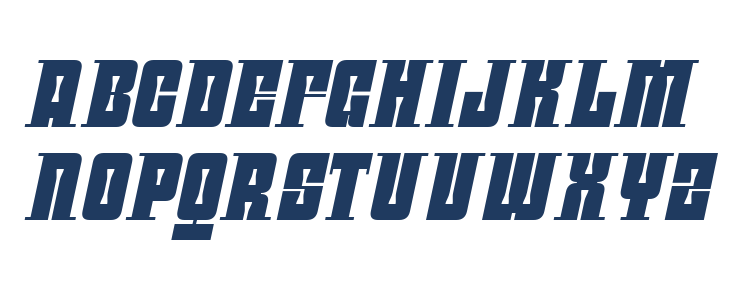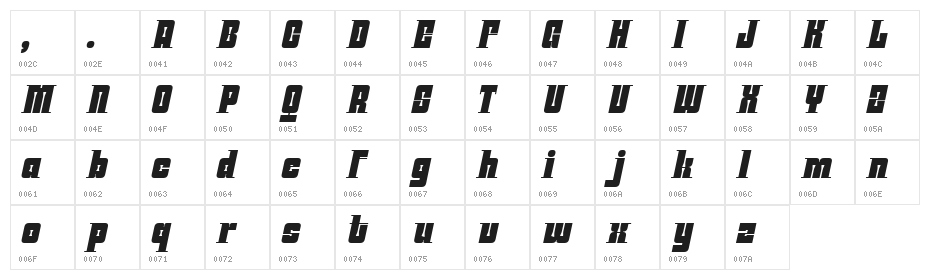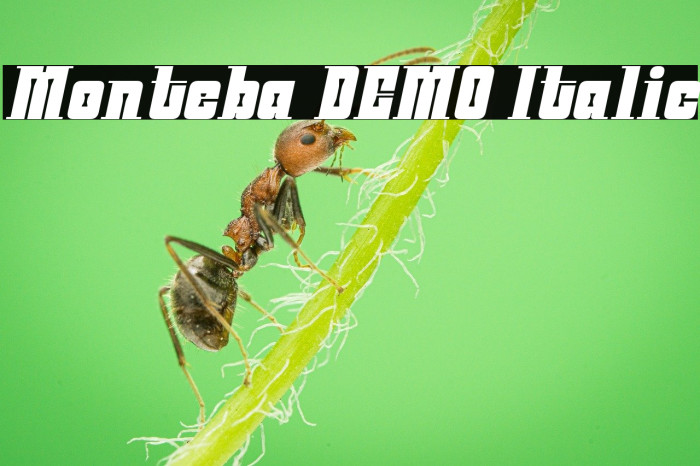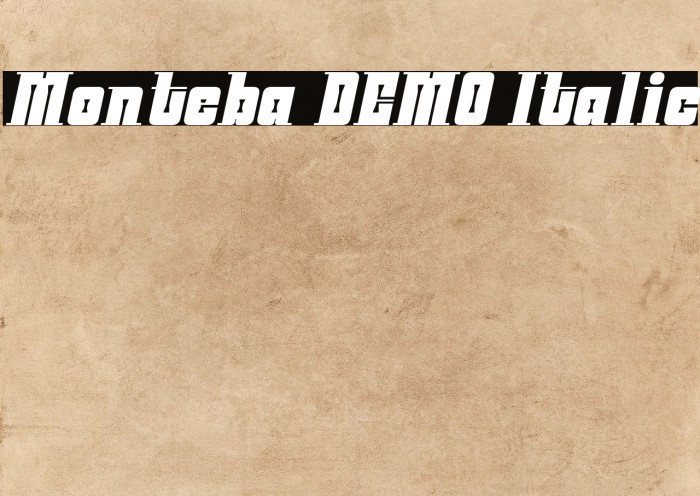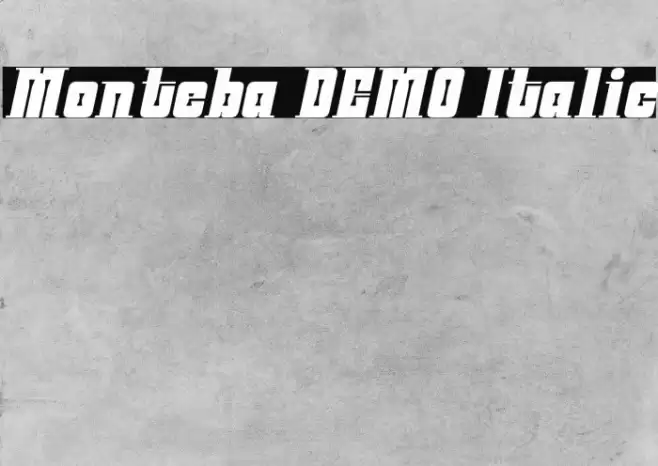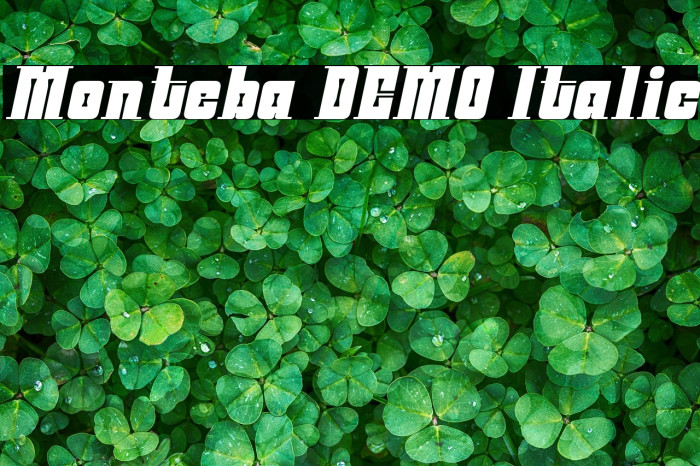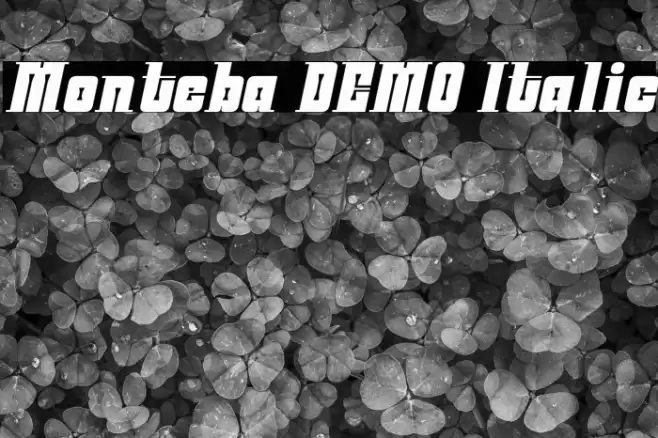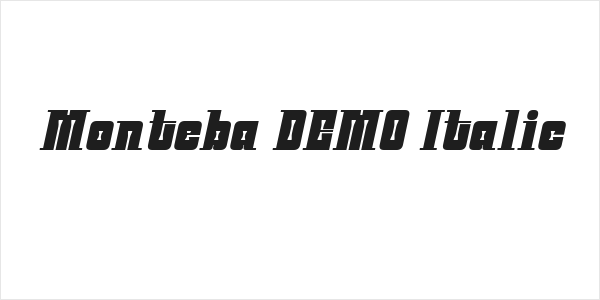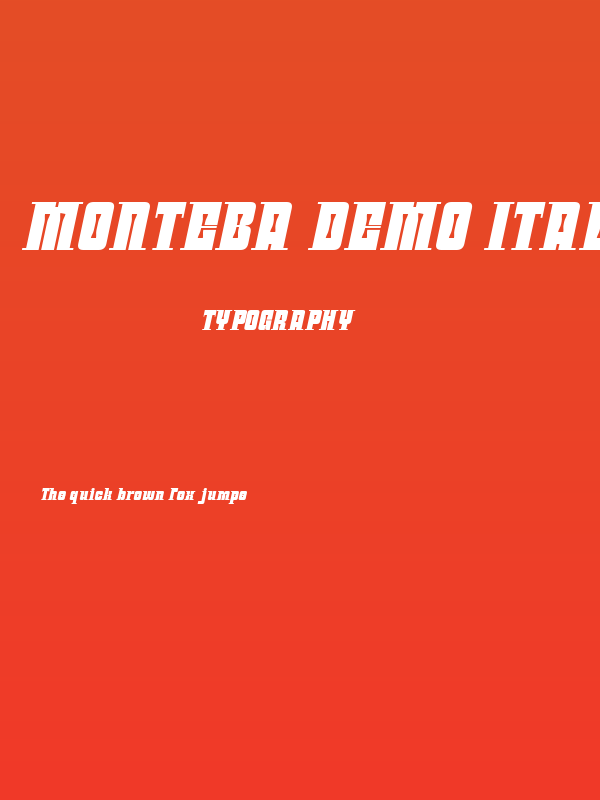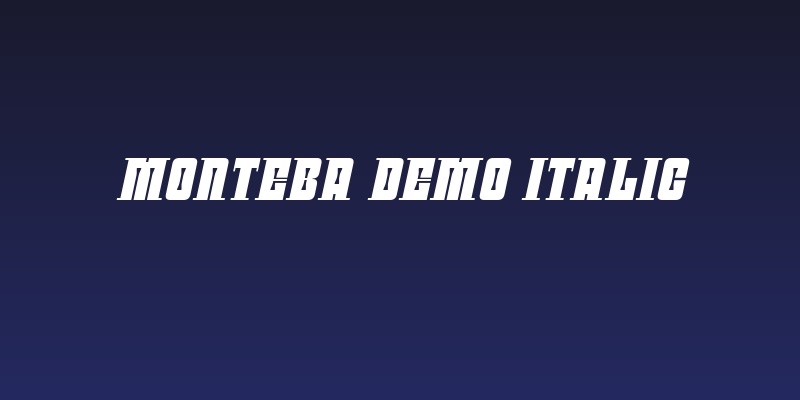
Monteba DEMO Italic Font
Monteba DEMO Italic Description
Bold, italicized, geometric sans-serif font with a strong, modern appearance. The uppercase letters are blocky with angled cuts, while the lowercase letters are similarly styled with a dynamic, slanted look. The font includes numerals and punctuation with consistent styling.
Monteba DEMO
| Overall Style | Modern, Geometric, Dynamic |
| Use Case | Headlines, Logos, Branding, Posters, Digital Media |